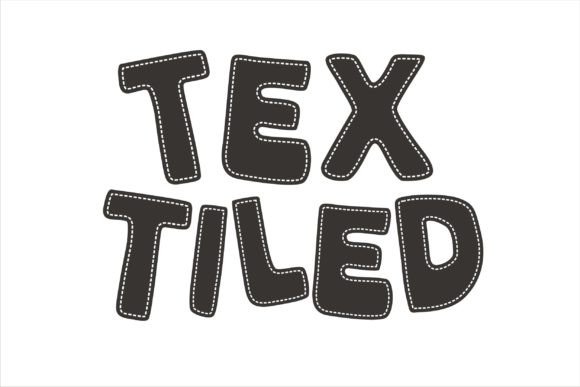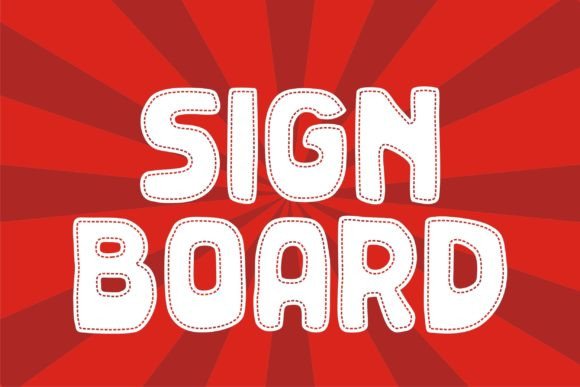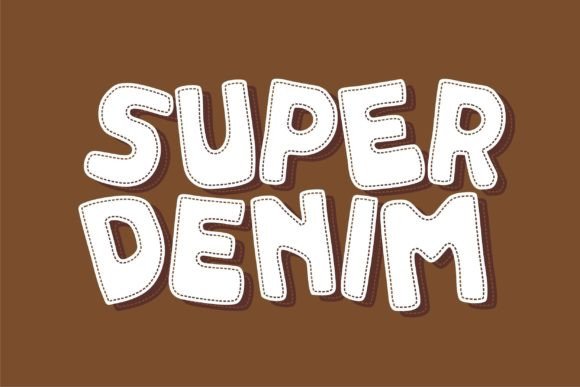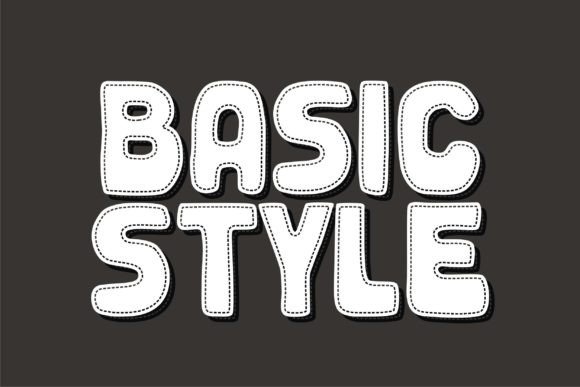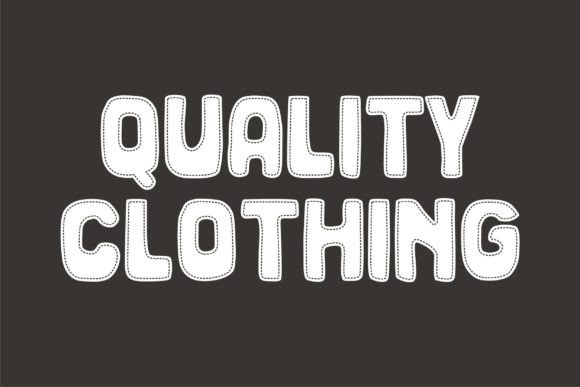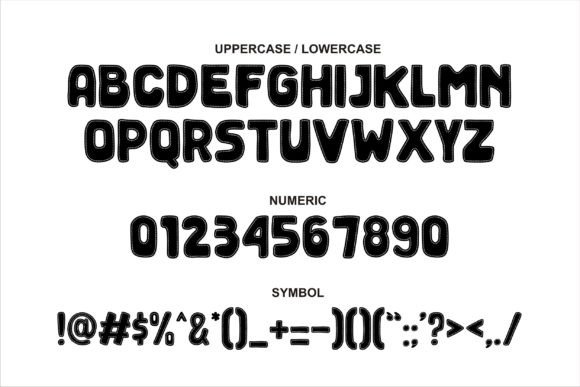
Introducing Comic Stitch Font: The Perfect Addition to Your Design Toolbox
Are you a designer, crafter, or artist looking for a unique and playful font to add some personality to your work? Look no further than Comic Stitch Font, a decorative font that combines a sewing texture theme with a fun and relaxed concept. In this article, we’ll dive into the features and benefits of Comic Stitch Font, and explore how it can elevate your designs, comics, books, crafts, and children’s products.
What is Comic Stitch Font?
Comic Stitch Font is a carefully crafted decorative font that mimics the look of stitched seams, giving it a distinctive texture that’s both visually appealing and tactile. The font’s design is inspired by traditional sewing and embroidery techniques, but with a modern twist that makes it perfect for digital applications. With its irregular stitch pattern and whimsical feel, Comic Stitch Font is sure to add a touch of playfulness to any design.
Key Features of Comic Stitch Font
• Unique Texture: The font’s stitched texture gives it a distinctive look that’s unlike any other font.
• Fun and Relaxed: Comic Stitch Font has a carefree, playful vibe that’s perfect for designs aimed at children or for adding a lighthearted touch to any project.
• Highly Versatile: The font can be used for a wide range of applications, from comic books and children’s books to crafts, posters, and digital products.
• Easily Customizable: With its OpenType features, Comic Stitch Font can be easily customized to fit your design needs.
Use Cases for Comic Stitch Font
So, where can you use Comic Stitch Font? The possibilities are endless! Here are a few ideas to get you started:
• Comic Books and Graphic Novels: Add a touch of personality to your comic book or graphic novel with Comic Stitch Font’s playful, stitched texture.
• Children’s Books: Create engaging and interactive children’s books with Comic Stitch Font’s fun and whimsical feel.
• Crafts and DIY Projects: Use Comic Stitch Font to add a personal touch to your craft or DIY project, such as a handmade card or a customized tote bag.
• Digital Products: Add some personality to your digital products, such as printable art, planners, or social media graphics.
Benefits of Using Comic Stitch Font
So, why choose Comic Stitch Font for your next project? Here are just a few benefits:
• Stand Out from the Crowd: With its unique texture and playful feel, Comic Stitch Font is sure to make your design stand out.
• Easy to Read: Despite its decorative nature, Comic Stitch Font is surprisingly easy to read, making it perfect for body text and headlines.
• Time-Saving: With Comic Stitch Font, you can add a professional-looking design element to your project in just a few clicks.
Tips for Using Comic Stitch Font
To get the most out of Comic Stitch Font, here are a few tips:
• Experiment with Colors: Try pairing Comic Stitch Font with bright, bold colors to really make it pop.
• Mix and Match: Combine Comic Stitch Font with other fonts to create a unique and eye-catching design.
• Play with Texture: Experiment with different textures and patterns to add depth and interest to your design.